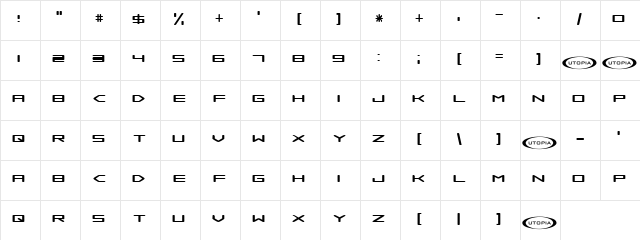
Samba is Dead Regular
Design Context for Samba is Dead
Samba is Dead is a composed and adaptable typeface that performs quietly and consistently across a wide range of design contexts.